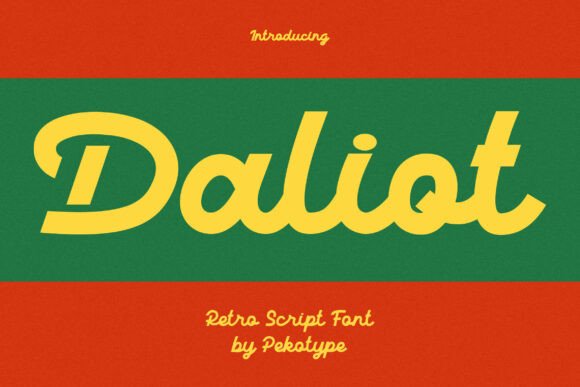
Daliot Font: A Bold Retro Script Display Font for Your Design Needs
In the world of typography, fonts play a crucial role in conveying the tone and personality of a brand or design. With the numerous font options available, it can be challenging to find the perfect one that captures the essence of your message. However, if you’re looking for a font that exudes a sense of nostalgia, personality, and modernity, look no further than the Daliot Font.
Introducing Daliot: A Bold Retro Script Display Font
Daliot is a bold retro script display font that has been carefully crafted to bring a sense of warmth and personality to your designs. With its flat-ended strokes, smooth curves, and bold structure, Daliot is the perfect font for those who want to add a touch of authenticity and style to their branding, logos, packaging, posters, promotional materials, and social media.
The Daliot Font is designed to capture the warmth of handwritten nostalgia with a strong modern twist. Its unique blend of vintage charm and contemporary flair makes it an ideal choice for designers who want to create eye-catching and memorable designs.
Key Features of Daliot Font
- Flat-ended strokes: Daliot’s flat-ended strokes give it a distinctive look that sets it apart from other script fonts.
- Smooth curves: The font’s smooth curves add a touch of elegance and sophistication to your designs.
- Bold structure: Daliot’s bold structure makes every word pop, ensuring that your message stands out in any design.
- Handwritten character: The font’s handwritten character gives it a personal and authentic feel that’s perfect for designs that need a touch of personality.
- Vintage charm: Daliot’s vintage charm makes it ideal for designs that require a nostalgic or retro vibe.
Perfect for Various Design Applications
Daliot is a versatile font that can be used for a wide range of design applications, including:
- Branding: Use Daliot to create a unique and memorable brand identity that stands out from the competition.
- Logos: The font’s bold and eye-catching design makes it perfect for creating logos that grab attention.
- Packaging: Daliot is ideal for designing eye-catching merchandise packaging that showcases your brand’s personality.
- Posters: Use Daliot to create striking posters that convey your message with style and impact.
- Promotional materials: The font’s bold and attention-grabbing design makes it perfect for creating promotional materials that drive results.
- Social media: Daliot is a great choice for social media graphics, as it can help you create engaging and shareable content.
Why Choose Daliot Font?
With so many fonts available, why choose Daliot? Here are just a few reasons:
- Unique blend of vintage and modern: Daliot’s unique blend of vintage charm and modern flair makes it a standout font that’s sure to grab attention.
- Highly readable: Despite its bold design, Daliot is highly readable, making it perfect for designs that require a clear and concise message.
- Authentic and stylish: The font’s authentic and stylish design makes it perfect for designers who want to create designs that are both nostalgic and contemporary.
Design Ideas with Daliot Font
Daliot is a versatile font that can be used for a wide range of design projects. Here are a few ideas to get you started:
- Retro cafe logo: Use Daliot to create a retro-style cafe logo that captures the essence of a bygone era.
- Vintage-themed poster: Create a striking vintage-themed poster that showcases your message with style and impact.
- Eye-catching merchandise packaging: Use Daliot to design eye-catching merchandise packaging that showcases your brand’s personality.
In conclusion, Daliot is a bold retro script display font that’s perfect for designers who want to add a touch of personality and nostalgia to their designs. With its unique blend of vintage charm and modern flair, Daliot is sure to grab attention and leave a lasting impression. Whether you’re designing a retro cafe logo, a vintage-themed poster, or eye-catching merchandise packaging, Daliot is the perfect font for your design needs.